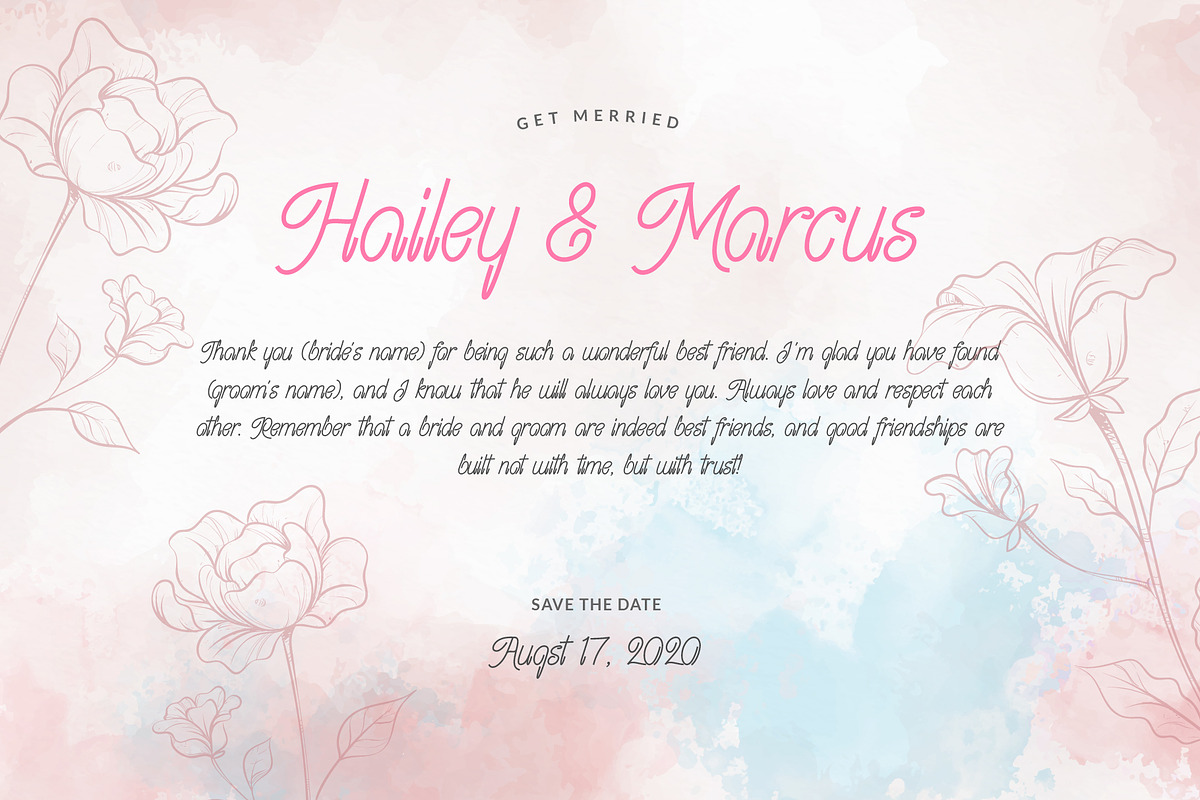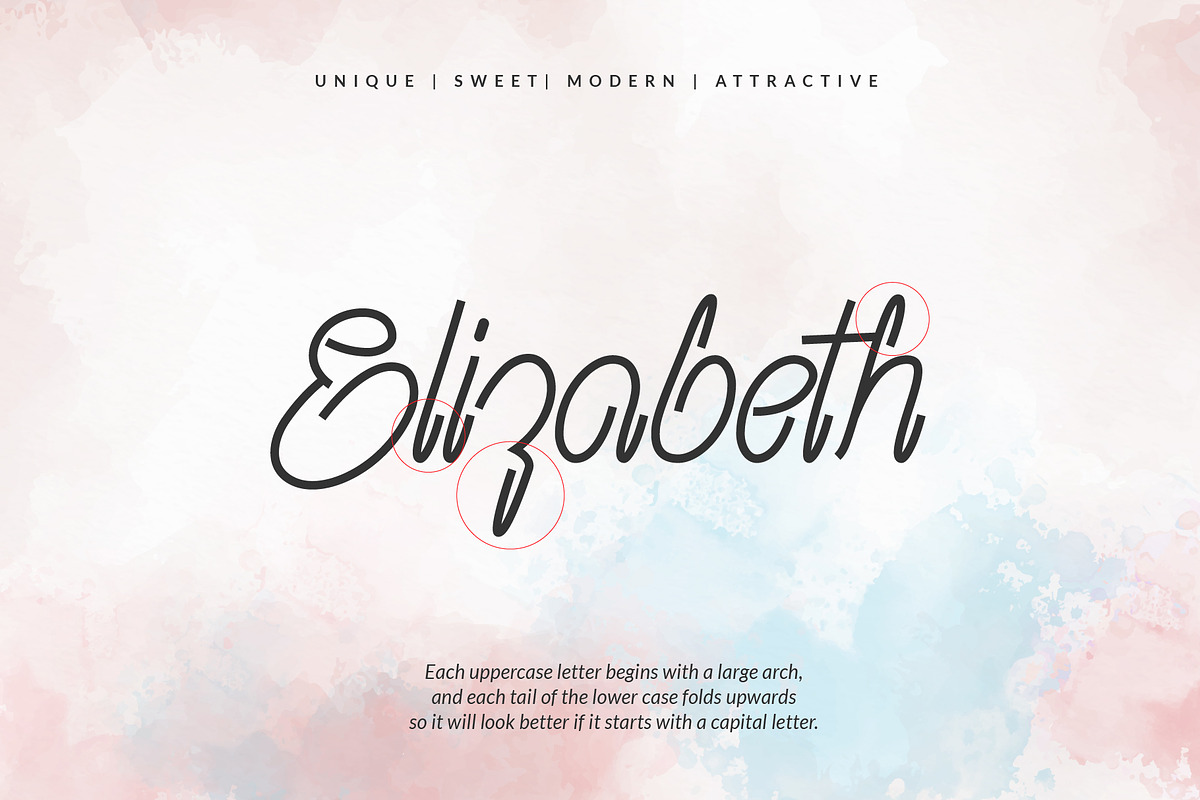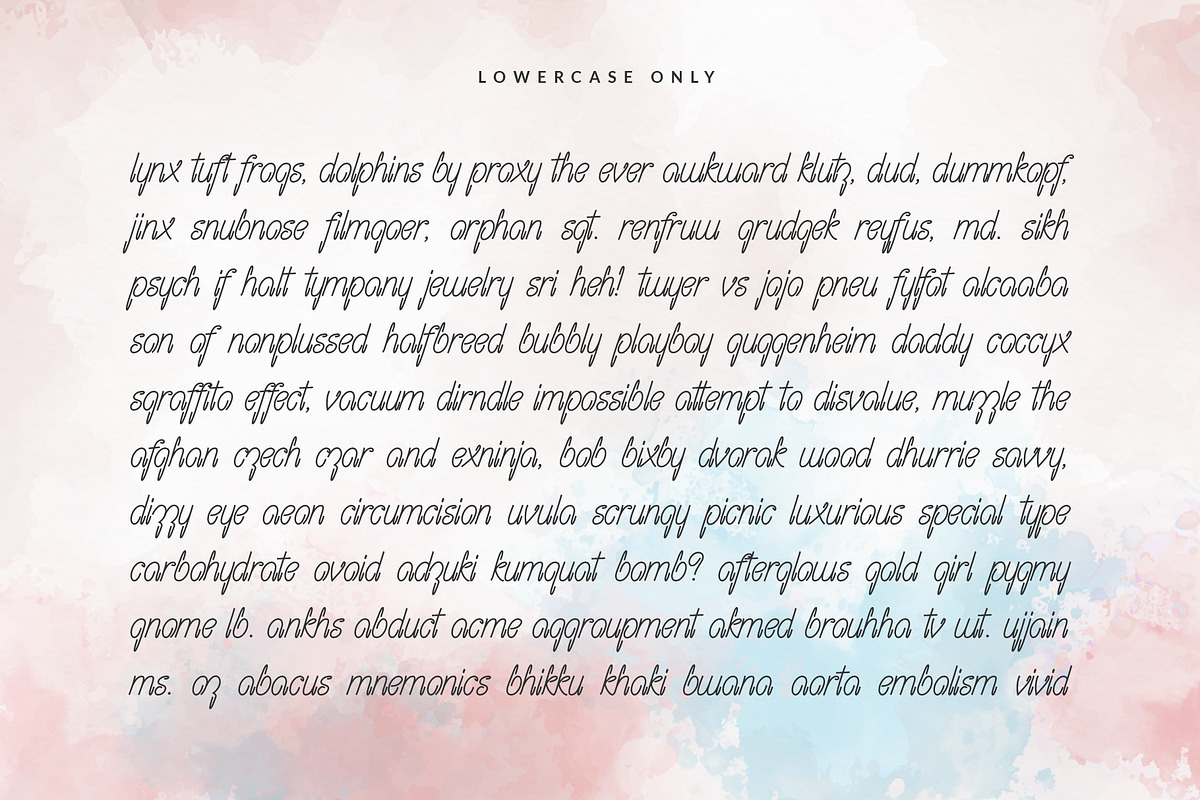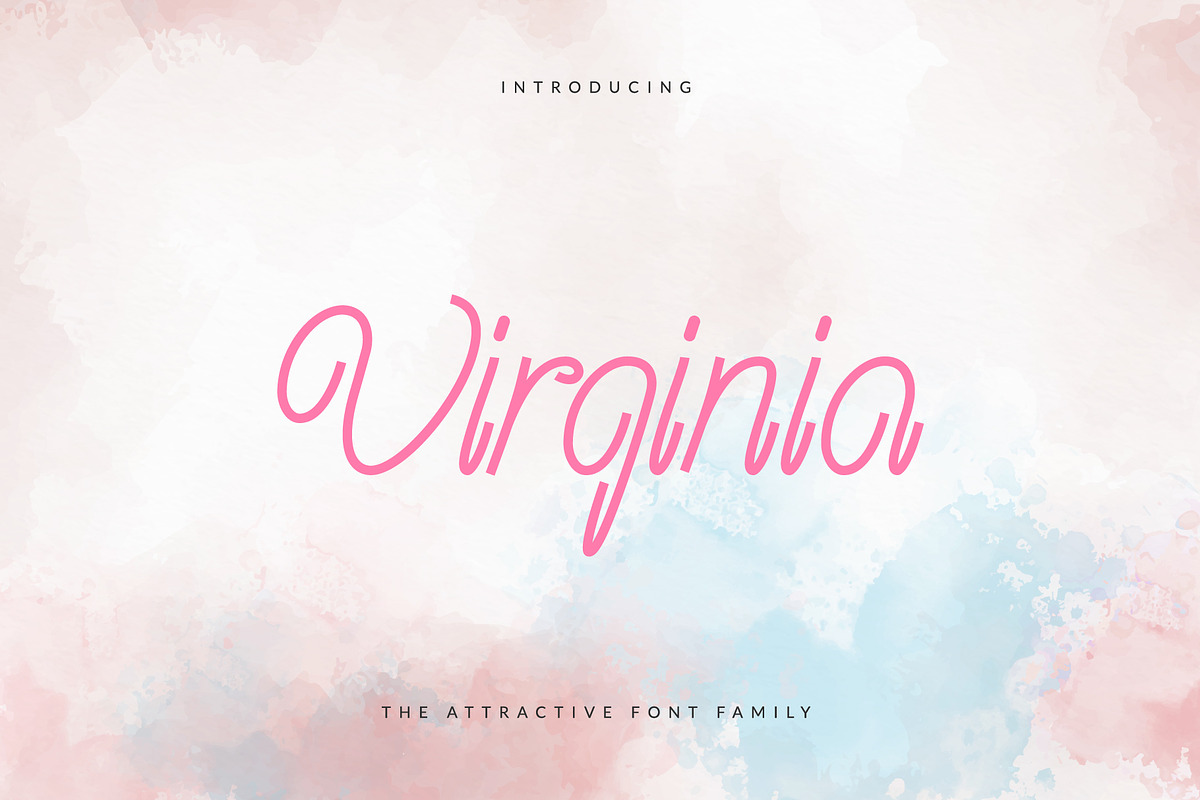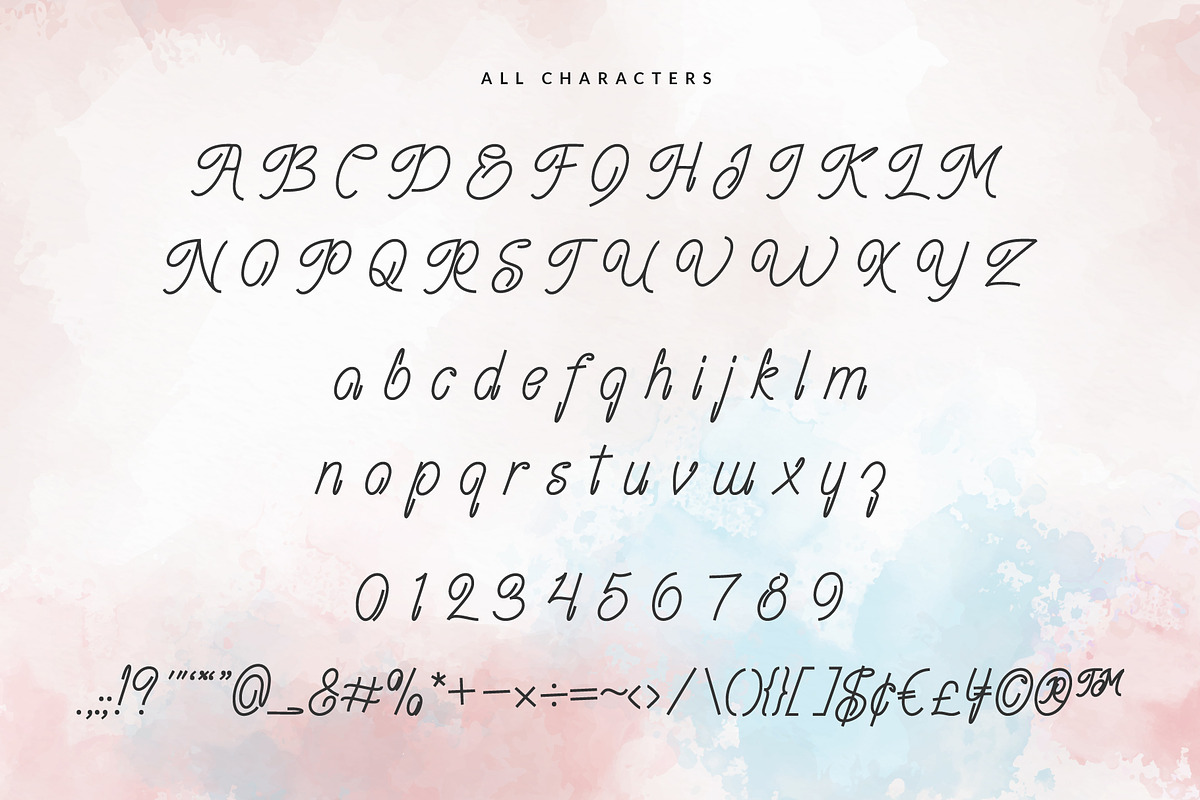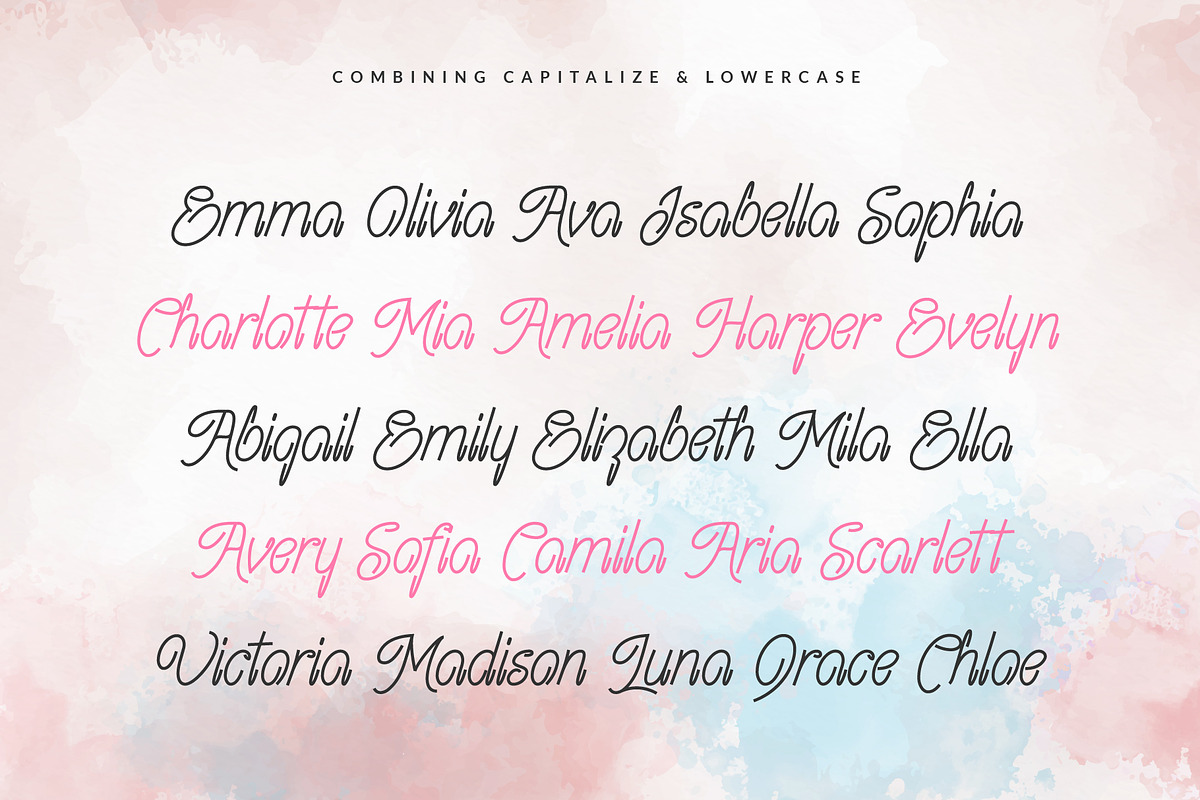
Virginia - The Attractive Font
Virginia is inspired by Thai letters or languages. Each uppercase letter begins with a large arch, and each tail of the lower case folds upwards so it will look better if it starts with a capital letter.
Virginia is suitable for brand logos, t-shirts, book titles, magazines, novels, music album titles, romantic movie titles, YouTube video titles, signatures, ad banner titles that I guarantee will captivate your buyers, because I made this font aimed to help you attract visitors, customers or customers to do something about your product.
You need to know, this type of font will look cute too if you mix it with other ornaments such as flowers and other ornaments that look feminine.
- Each uppercase letter begins with a large arch, and each tail of the lower case folds upwards so it will look better if it starts with a cap